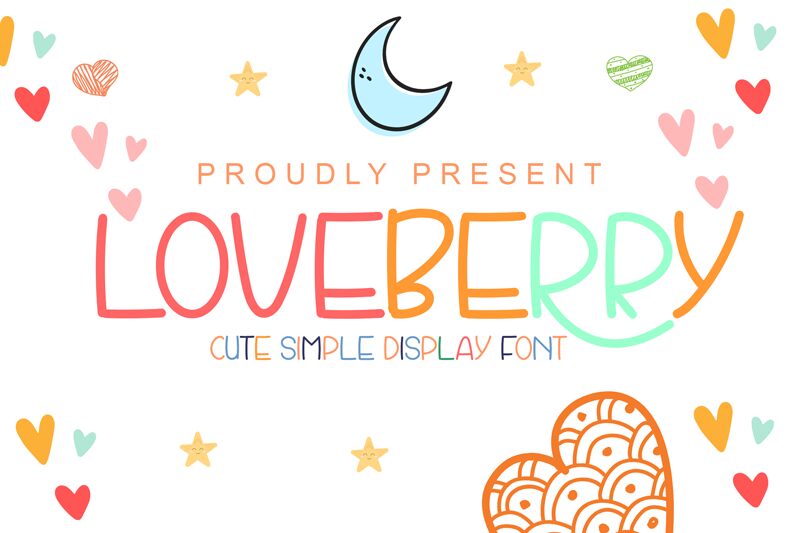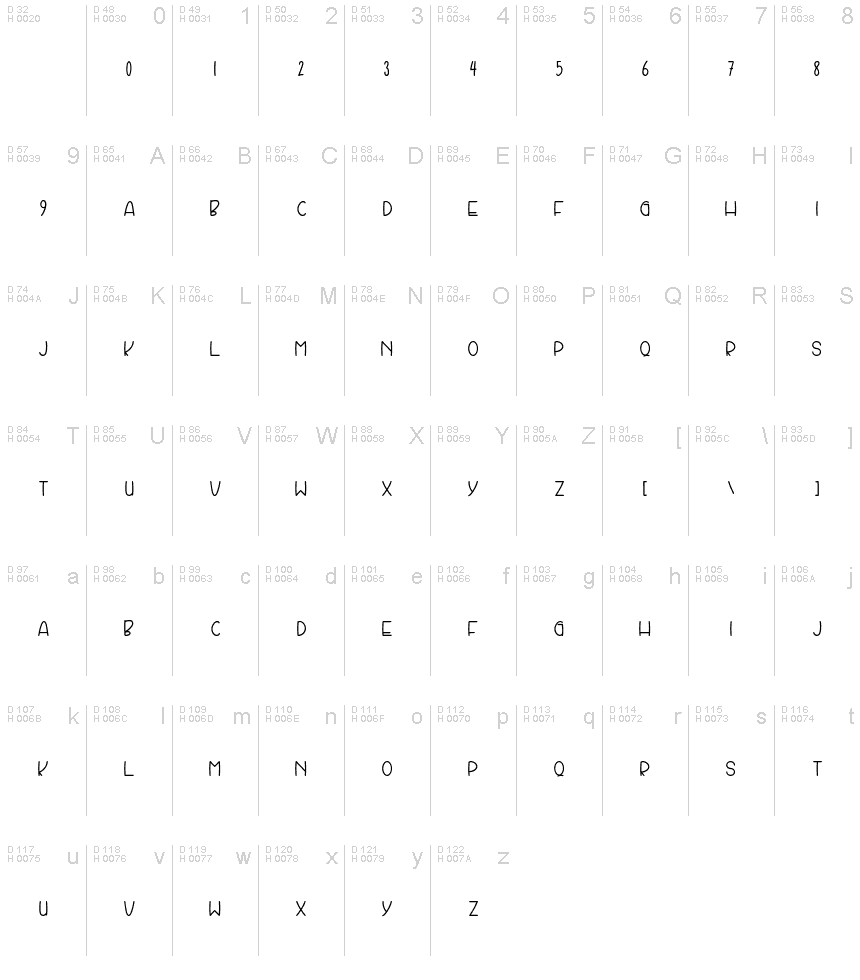
Loveberry
Loveberry, designed by Anggun Bangkit Hutami, is a handwritten font that exudes charm and simplicity. With its semi-light weight and delicate strokes, Loveberry captures the essence of a personal touch, making it an excellent choice for projects that require a dose of warmth and whimsy.
The aesthetic appeal of Loveberry lies in its unassuming elegance and the gentle flow of its letters. It strikes a balance between playful and professional, ensuring that your designs convey approachability without sacrificing style. Its handwritten nature makes each glyph feel like a personal note, inviting engagement from the viewer.
Perfect for children's themes, Loveberry shines brightly when paired with vibrant colors, bringing out an air of playfulness and joy. Whether it's for invitations, logos, or educational materials, this font adds a subtle hint of individuality to any creative endeavor.
Explore the potential of Loveberry to infuse your designs with sincerity and charm – the ideal typographic companion for conveying messages with heart.